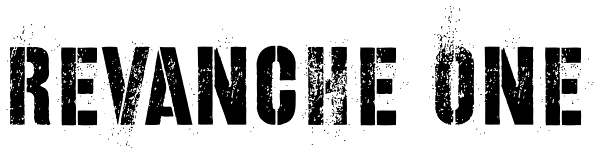
Revanche
Revanche is a distressed stencil font! It is based on old walls stencils and it has that rebel, subversive and military feel to it. Revanche comes with 2 styles: Revanche One and Revanche Two (Alternate), so you have 4 different uppercase character...
Revanche One
Revanche Two
Revanche X